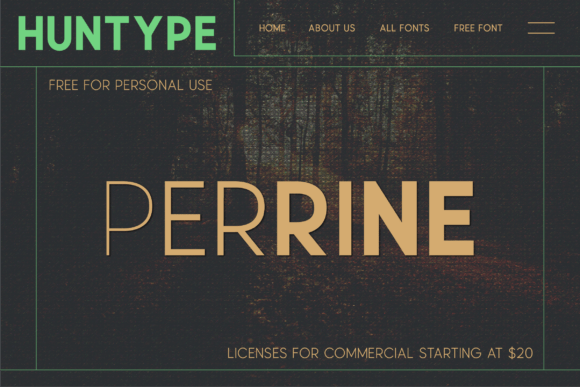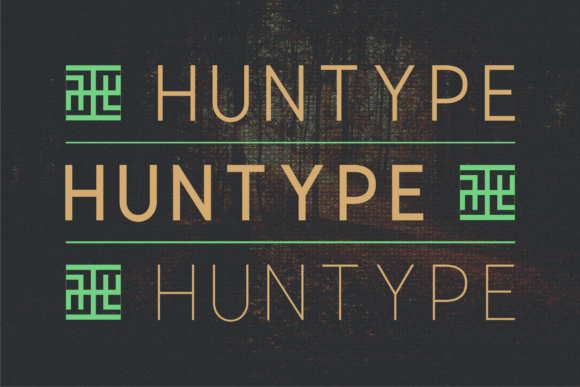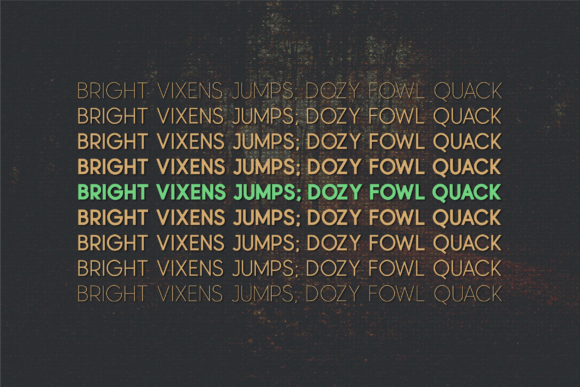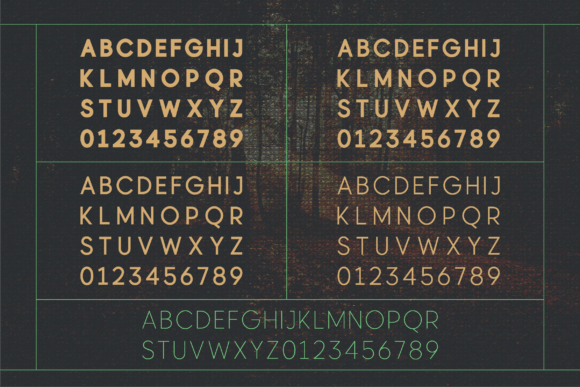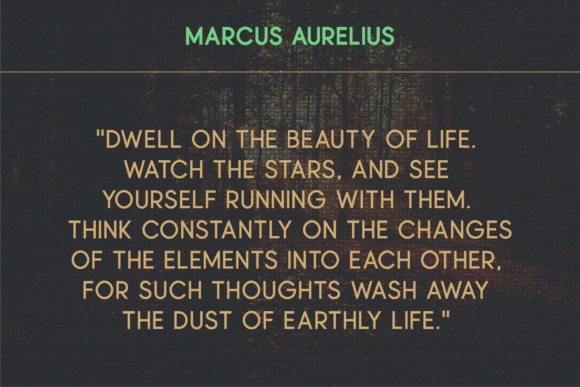
Introduction to Perrine Font
As you sit at your desk, staring at a blank canvas, waiting for the perfect font to bring your creative project to life, you can’t help but feel the pressure to find the right one. The right font can make or break a design, and in today’s world of high-quality design resources, it’s easier than ever to get lost in the sea of options. But what if you stumbled upon a font family that not only stood out from the crowd but also offered a versatile range of styles to suit any design need?
Enter the Perrine Font, a modern and adaptable font family that has been making waves in the design community. With its blend of clean geometric forms and subtle sophistication, Perrine Font is the perfect addition to any designer’s toolkit.
Whether you’re working on a high-end branding project or a simple blog post, Perrine Font offers five unique styles to choose from, each with its own distinct personality. From the bold and impactful Perrine Black to the delicate and sophisticated Perrine Thin, this font family has got you covered.
Perrine Font
- High-quality, professional font suitable for various creative projects, including graphic design, digital art, and publishing.
- Unique characteristic: The Perrine Font features a distinctive, elegant design with intricate details, making it perfect for luxury branding, fashion, and high-end design projects.
Honest Review: Perrine Font
- ✨ High quality: The font is incredibly crisp and clean, making it perfect for a variety of design applications.
- ✨ Versatility: The Perrine Font is incredibly versatile and can be used for a wide range of creative projects, from typography-heavy designs to more subtle backgrounds.
However, I did encounter a few limitations during my review.
- ⚠️ Limited character set: While the font is high quality, the character set is somewhat limited, which may not be ideal for complex design projects.
- ⚠️ Not suitable for large-scale text: Due to its elegant design, the Perrine Font may not be the best choice for large-scale text, as it can become difficult to read.
Perrine Font
Tips for Getting the Most Out of Perrine Font
To get the most out of Perrine Font, use it on a transparent background to create a sense of elegance and sophistication. You can also pair it with other fonts to create a unique and eye-catching design.
Perrine Font is perfect for use in wedding invitations, baby shower invitations, and other special occasion invitations. It’s also great for use in branding and marketing materials, such as logos and business cards.